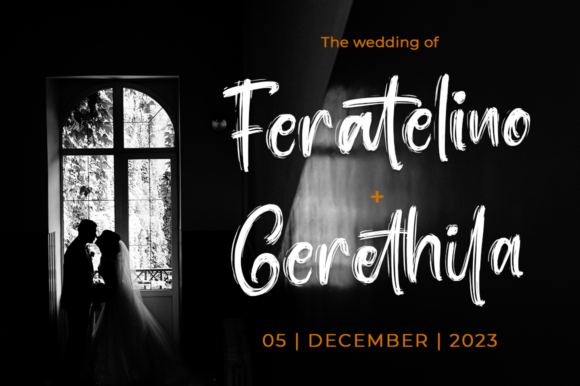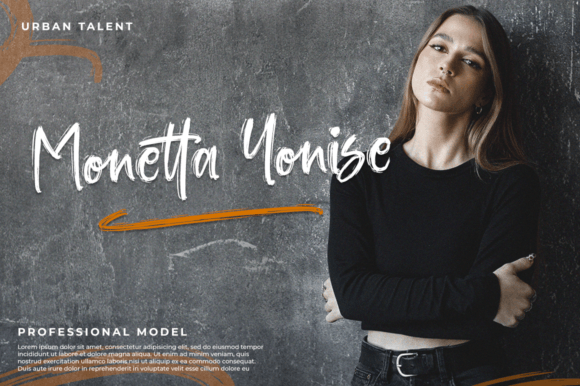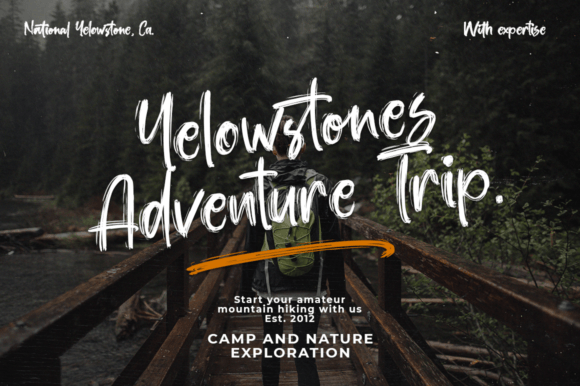
Introduction to Postmalones Font
Remember that moment when you’re brainstorming ideas for your next creative project and you need the perfect font to bring it all together? For designers and artists, finding the right font can make or break the overall aesthetic of a design. This is where the Postmalones Font comes in – a stunning, stylish, and bold brushed handwritten font that’s sure to elevate your work.
Whether you’re working on a design project with a transparent background or creating a promotional poster, the Postmalones Font is the perfect design resource to give your work that extra oomph. Its high-quality, PUA-encoded glyphs and swashes allow for endless creative possibilities, making it an invaluable addition to any designer’s toolkit.
- High-quality design resource ideal for creative projects and personal use
- Unique, modern aesthetic suitable for a wide range of design applications
- Includes a range of glyphs and characters for versatility in creative projects
Honest Review: Postmalones Font
As a designer, I was excited to explore the Postmalones Font, a free download that promised to elevate my creative projects. After diving in, I’m here to share my honest thoughts.
- ✨ Unique aesthetic: The font has a distinctive look that sets it apart from more generic fonts.
- ✨ High quality: The typography is crisp and clear, making it perfect for print and digital designs.
- ✨ Versatile: I found it suitable for a variety of creative projects, from logos to social media graphics.
However, there are some limitations:
- ⚠️ Limited character set: The font doesn’t include a full range of characters, which can be a challenge for longer text-based projects.
- ⚠️ Transparency issues: I encountered some issues with transparent backgrounds, which can be frustrating for designers who rely on this feature.
Overall, the Postmalones Font is a great design resource, but it’s essential to be aware of its limitations. If you’re looking for a unique, high-quality font for your creative project, this might be a good choice. Just be sure to test it thoroughly before committing to a large-scale design.
Tips for Getting the Most Out of Postmalones Font
For a high-quality design, use the Postmalones Font with a transparent background to create a visually appealing effect. This font is ideal for creative projects that require a unique and eye-catching design.
The Postmalones Font is suitable for various design applications, including logos, business cards, and social media graphics. Its high-quality design makes it an excellent resource for designers looking to add a touch of elegance to their creative projects.